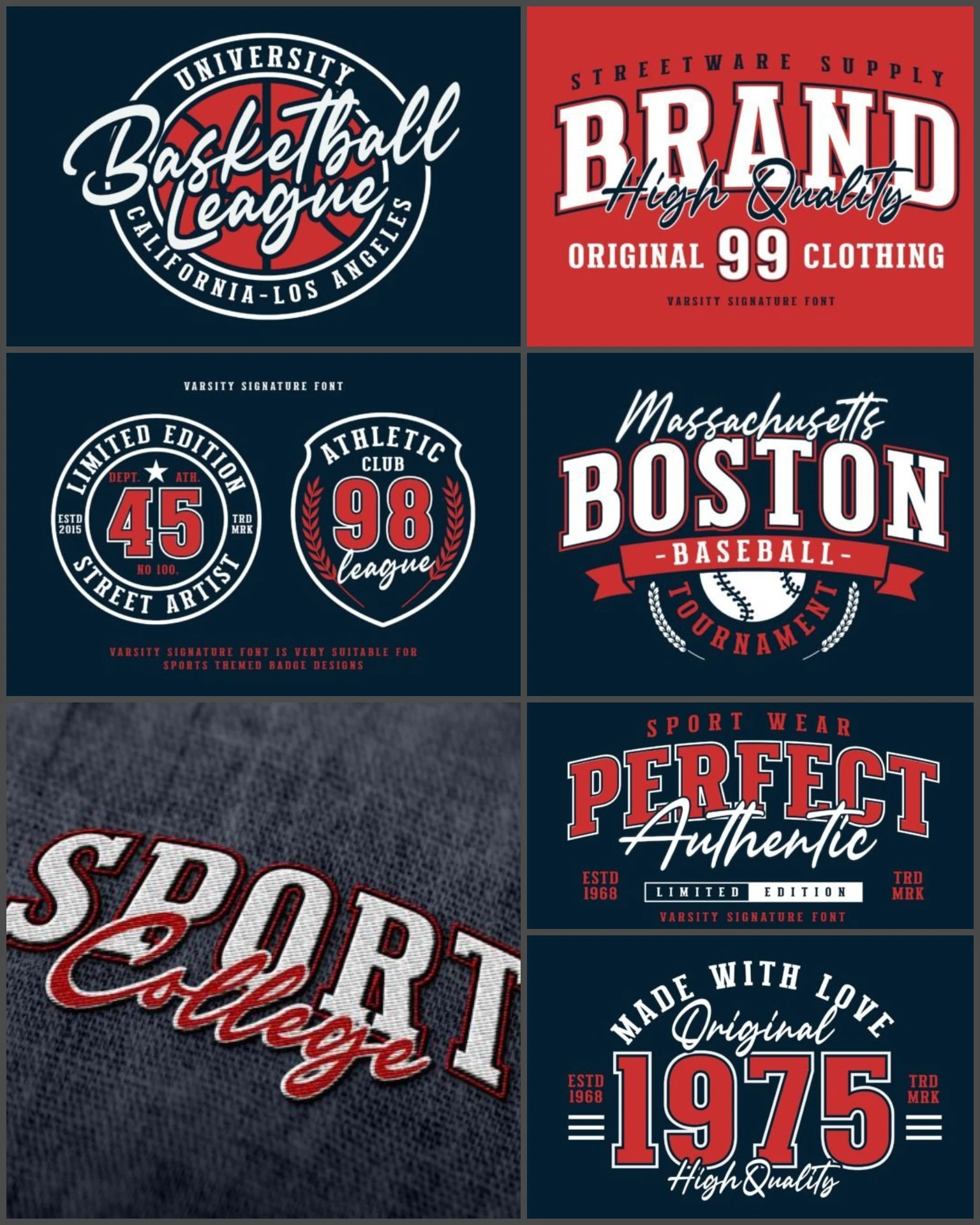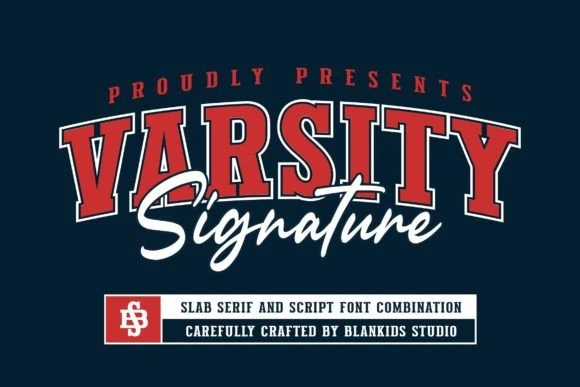
Varsity Signature is a sporty college font designed for creators who need a strong varsity style identity in their work. This modern athletic typeface brings the classic university look into projects for Cricut designs, sublimation artwork, apparel prints and bold branding. Its clean construction and energetic character shapes help elevate logos, product packaging and promotional materials with an authentic team-inspired feel. The font’s uppercase and lowercase letters, numerals and punctuation support versatile usage, allowing designers to craft standout sports apparel, baseball and basketball graphics or retro-themed merchandise. Varsity Signature delivers a confident visual tone that works beautifully for modern collegiate aesthetics and apparel collections.